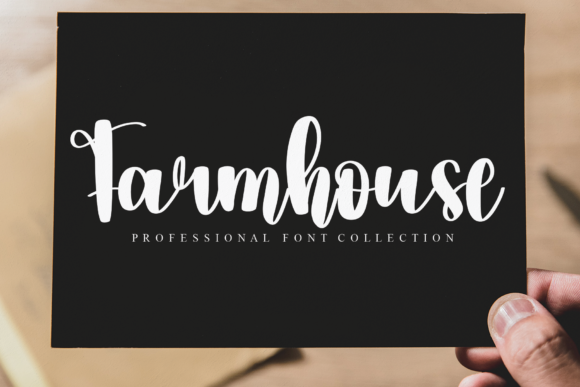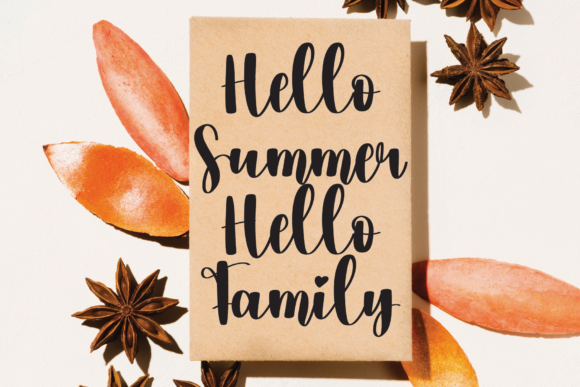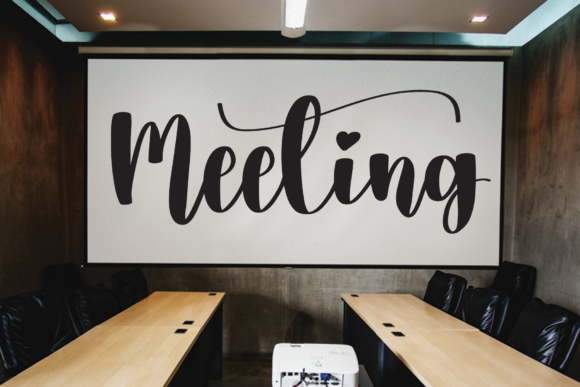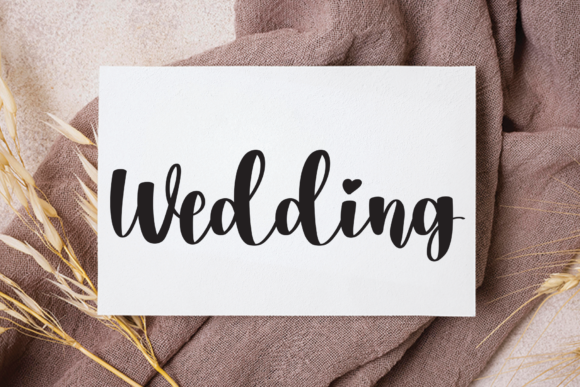
Introducing Handmade Signature Font: Elevate Your Designs with a Personal Touch
In the world of digital design, fonts play a crucial role in conveying emotions and setting the tone for your projects. If you’re looking for a font that adds a touch of elegance, sophistication, and warmth to your designs, look no further than the Handmade Signature Font. This beautiful, cursive handwritten font is perfectly designed to look natural and authentic, making it an ideal choice for delicate projects that require a personal touch.
What is Handmade Signature Font?
Handmade Signature Font is a stunning, handcrafted typeface that mimics the fluidity and uniqueness of handwritten script. Its cursive strokes and delicate connections make it perfect for creating beautiful, eye-catching designs that stand out from the crowd. Whether you’re a designer, crafter, or DIY enthusiast, this font is sure to become a staple in your creative arsenal.
Perfect for Delicate Projects
So, what makes Handmade Signature Font so special? Its versatility and wide range of applications make it an excellent choice for various delicate projects, including:
- Wedding Invitations: Create stunning wedding invitations, save-the-date cards, and ceremony programs that set the tone for your special day.
- Birthday Cards: Design beautiful, one-of-a-kind birthday cards that make the recipient feel extra special.
- Thank You Notes: Express your gratitude with elegant, handwritten-style thank you notes that leave a lasting impression.
- More: Use Handmade Signature Font for other special occasions, such as baby showers, anniversaries, and holiday greetings.
Why Choose Handmade Signature Font?
With so many fonts available, what sets Handmade Signature Font apart from the rest? Here are just a few reasons why designers and crafters love this beautiful font:
- Unique and Authentic: Handmade Signature Font is carefully crafted to look natural and authentic, giving your designs a personal touch that’s hard to replicate with generic fonts.
- Elegant and Sophisticated: The font’s cursive strokes and delicate connections add a touch of elegance and sophistication to any design, making it perfect for special occasions.
- Versatile: Handmade Signature Font can be used for a wide range of projects, from digital designs to print materials, and even handmade crafts.
Handmade Signature Font is a beautiful, cursive handwritten font that’s perfect for delicate projects that require a personal touch. With its unique and authentic feel, elegant and sophisticated style, and versatility, this font is sure to become a favorite among designers and crafters. Whether you’re creating wedding invitations, birthday cards, or thank you notes, Handmade Signature Font is the perfect choice for adding a touch of warmth and personality to your designs.